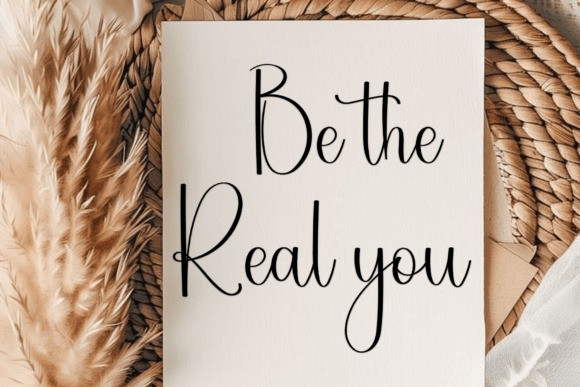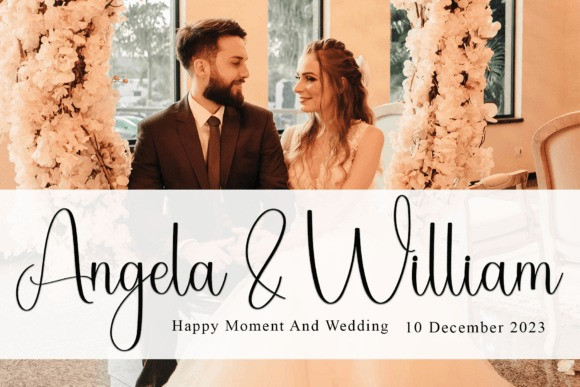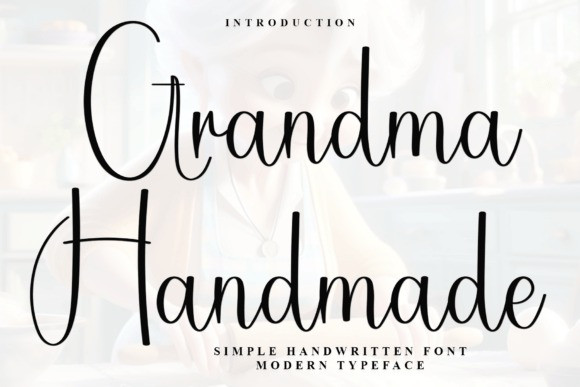
Grandma Handmade Handwriting Font
Grandma Handmade Handwriting Font is a warm, handwritten script font that looks like it was crafted with love. Its charming, flowing letters give a personal, cozy touch to any project.